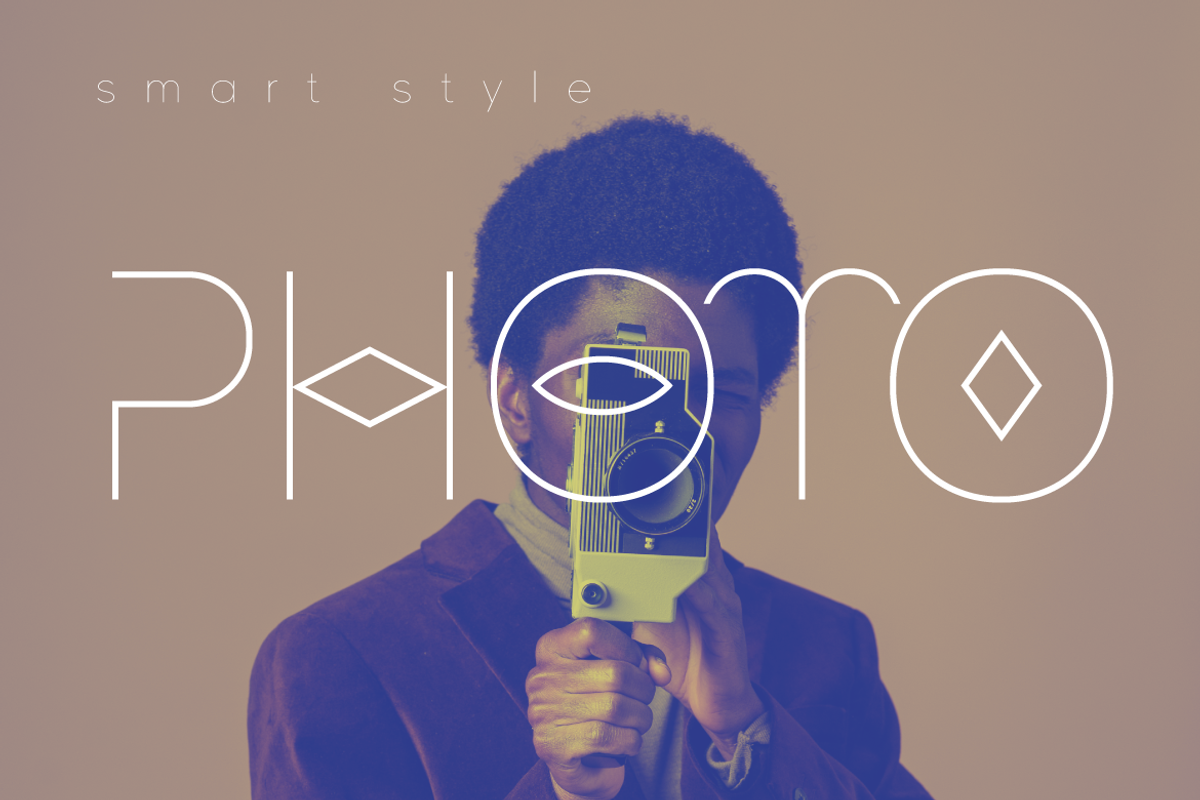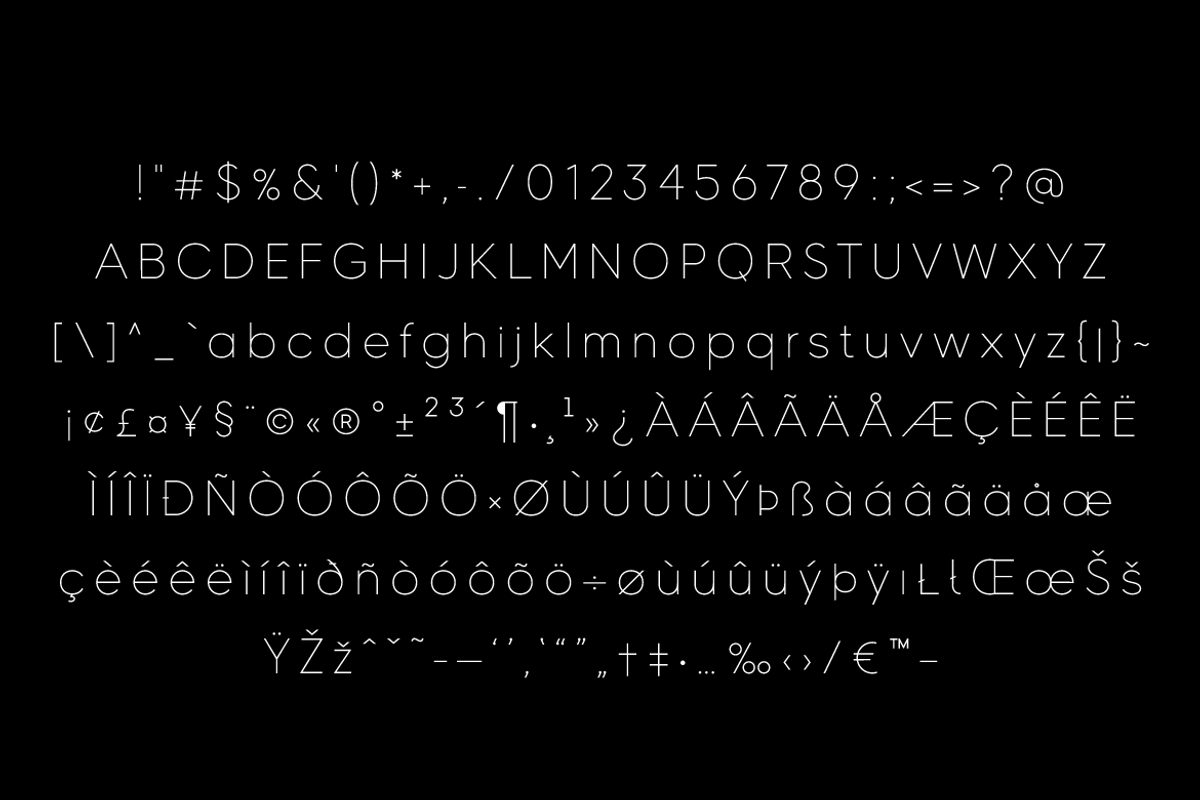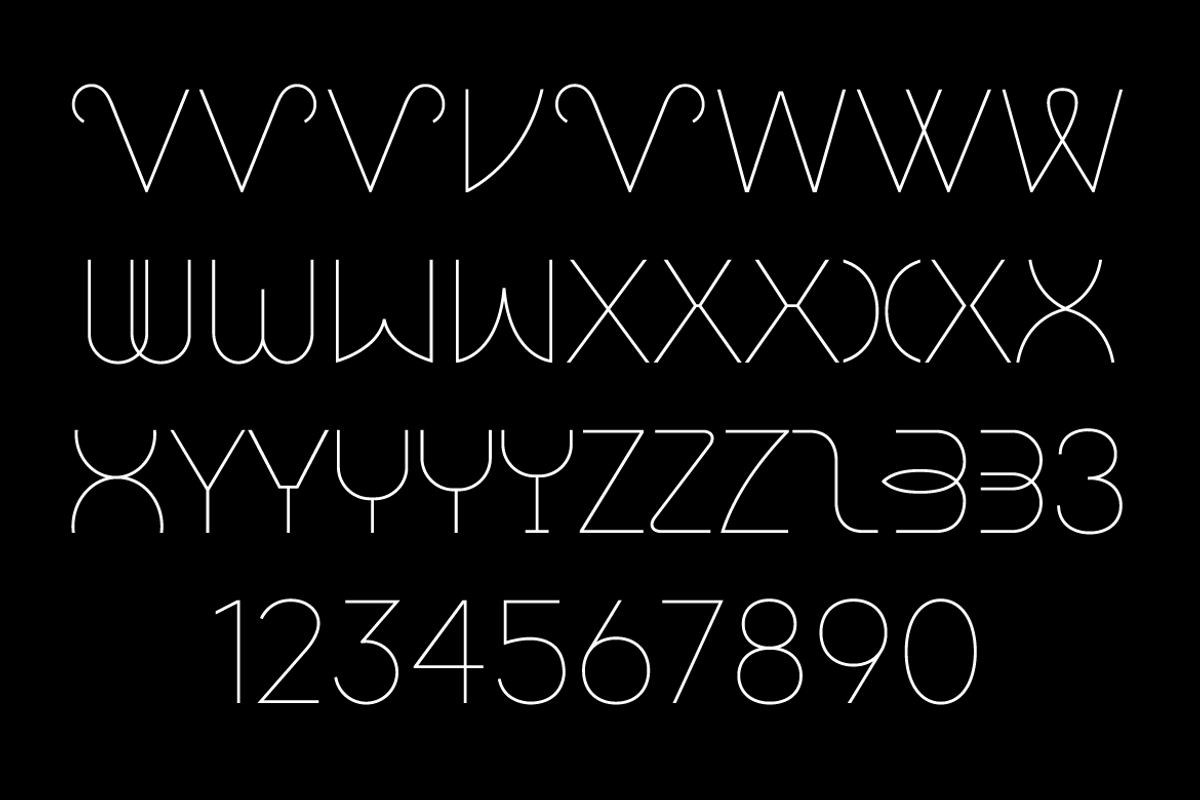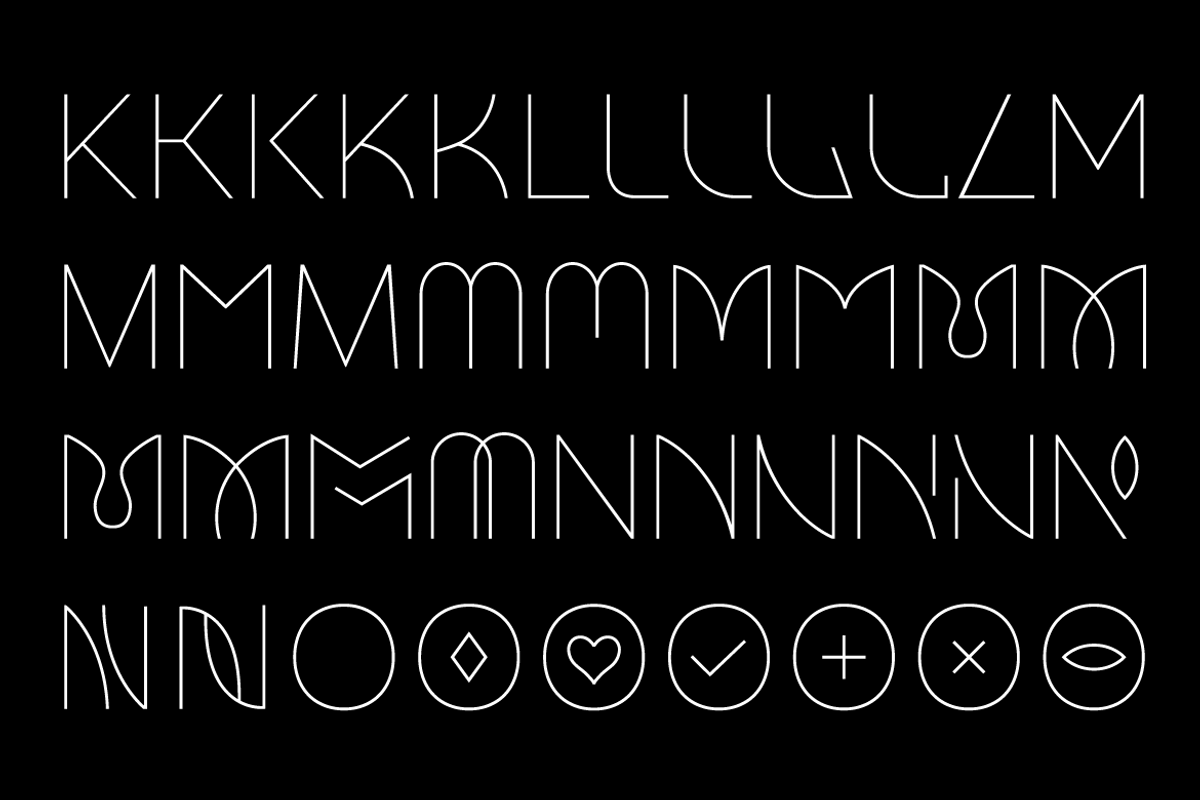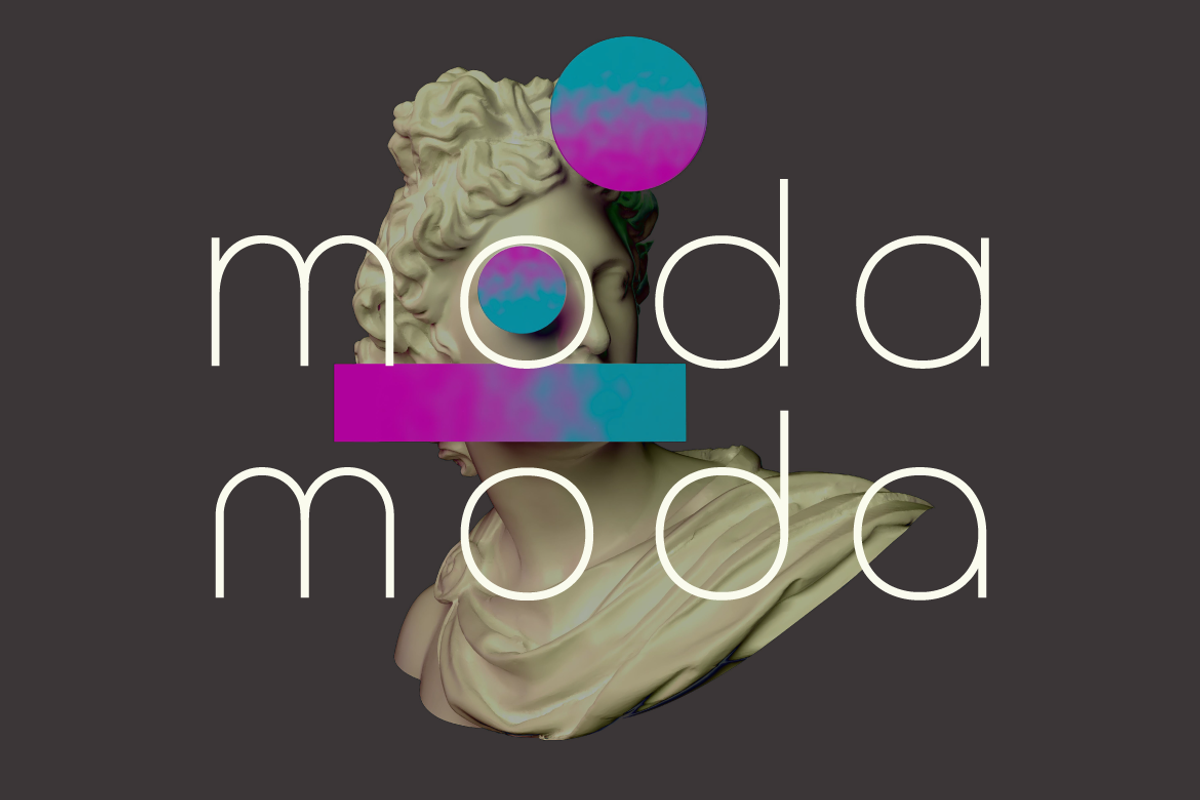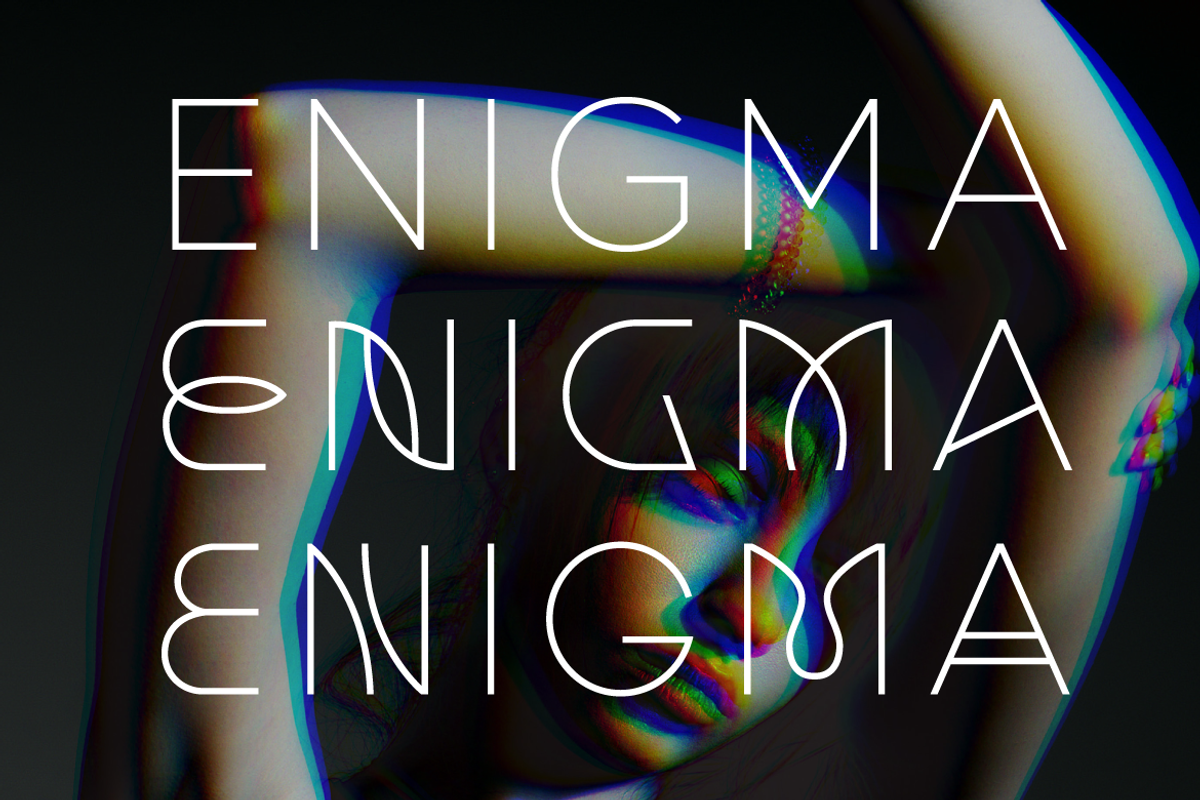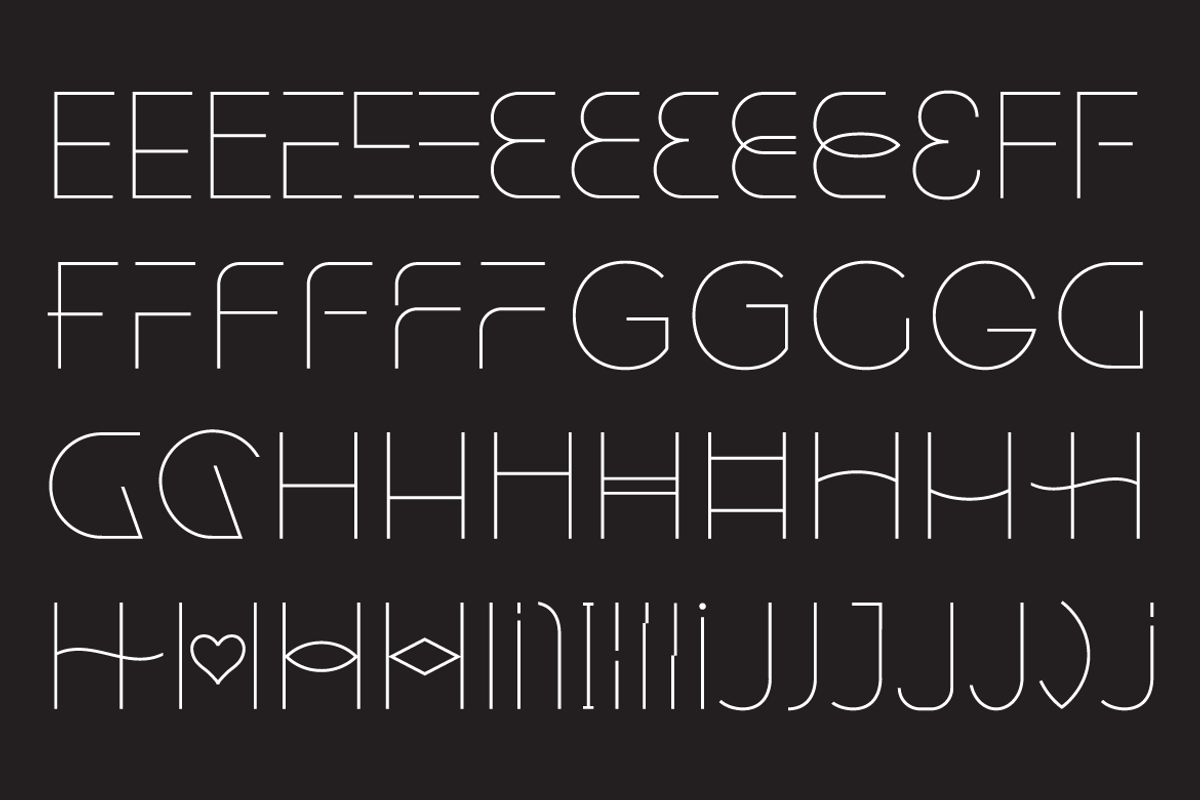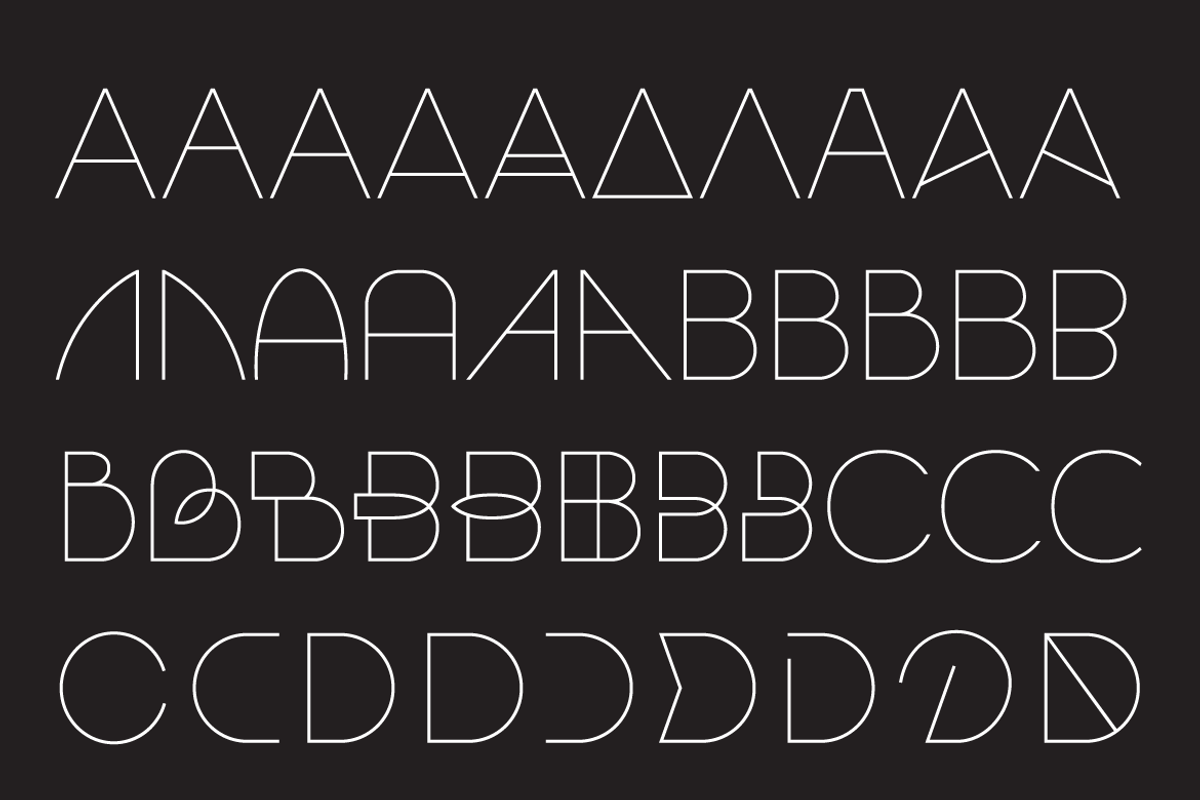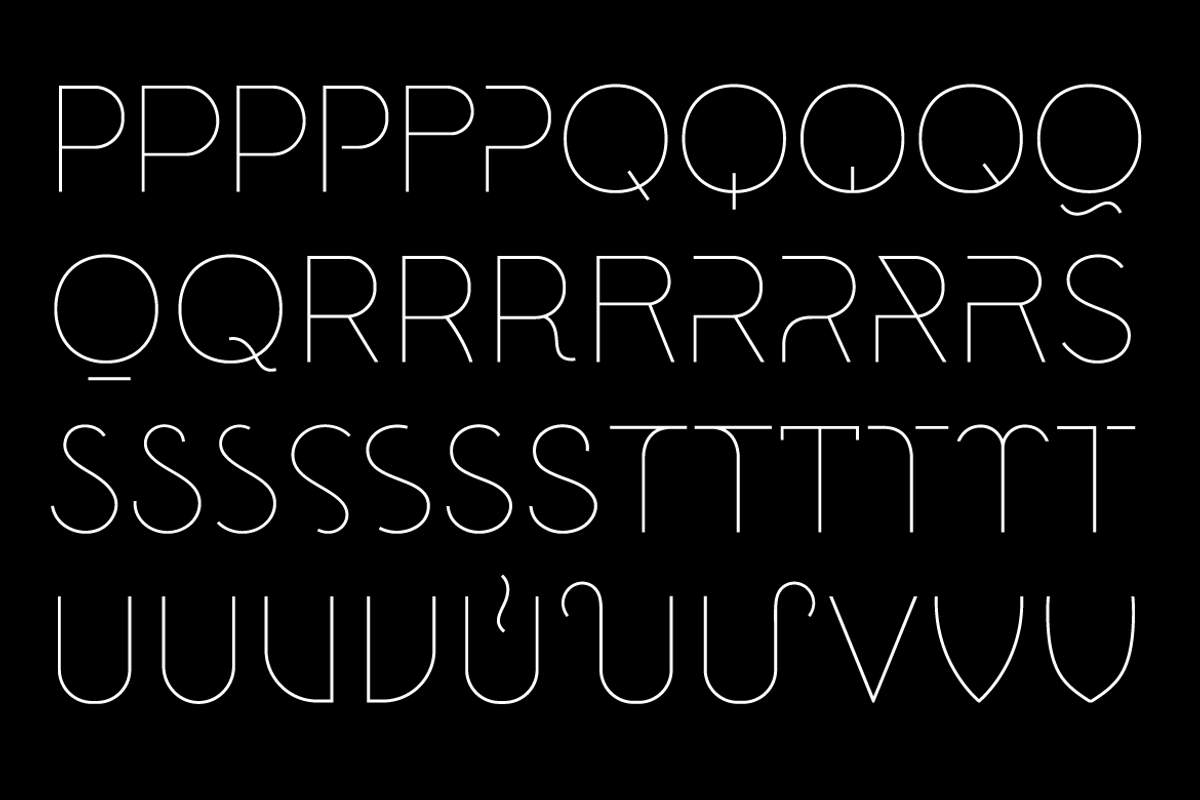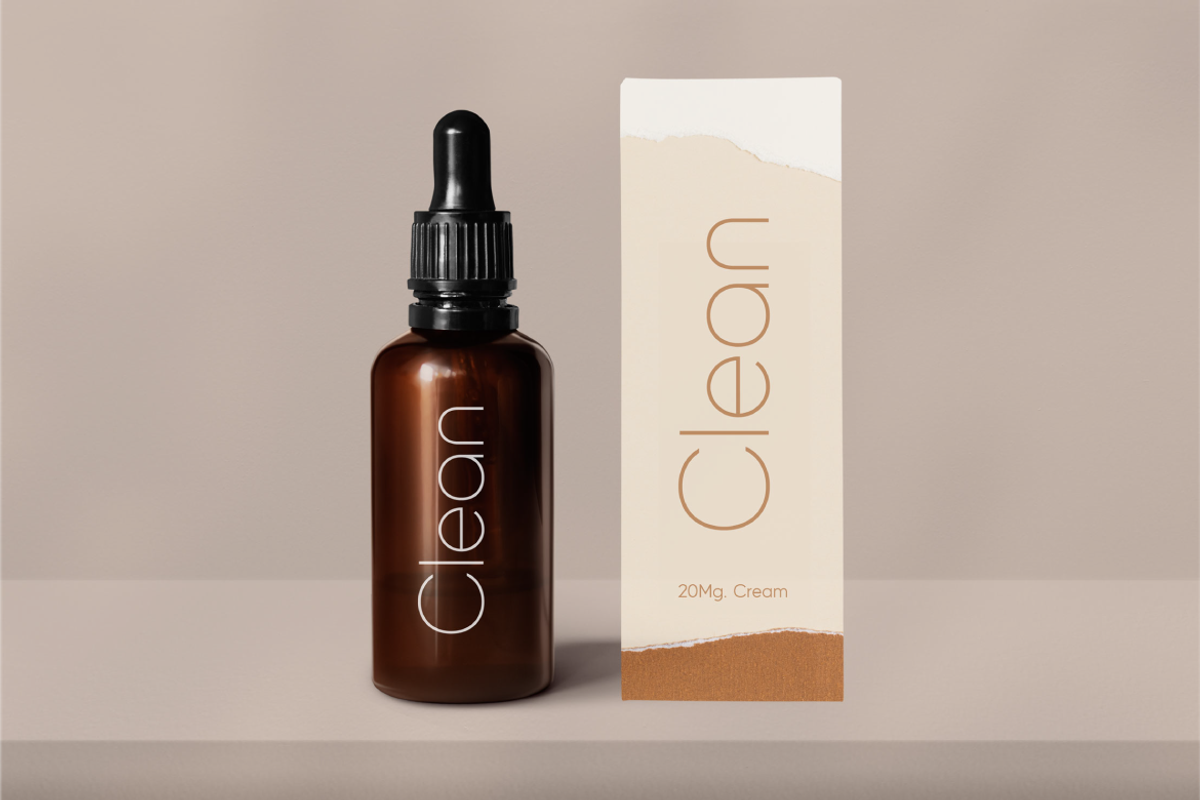
Riveruta Sans Variable Font
Riveruta is a contemporary sans serif font that boasts a multitude of alternate glyphs, giving designers the freedom to create truly unique and eye-catching designs. The font is characterized by its sleek and modern appearance, with clean lines and a minimalist aesthetic.
One of the standout features of Riveruta is its extensive set of alternates, which include multiple versions of each letterform. This means that designers can experiment with different combinations of glyphs to create custom typography that perfectly suits their project's needs.
Whether you're designing a logo, a website, or a marketing campaign, Riveruta's alternates offer endless possibilities for creative expression. With its sharp, sophisticated look and versatile design, Riveruta is the perfect choice for any modern design project.